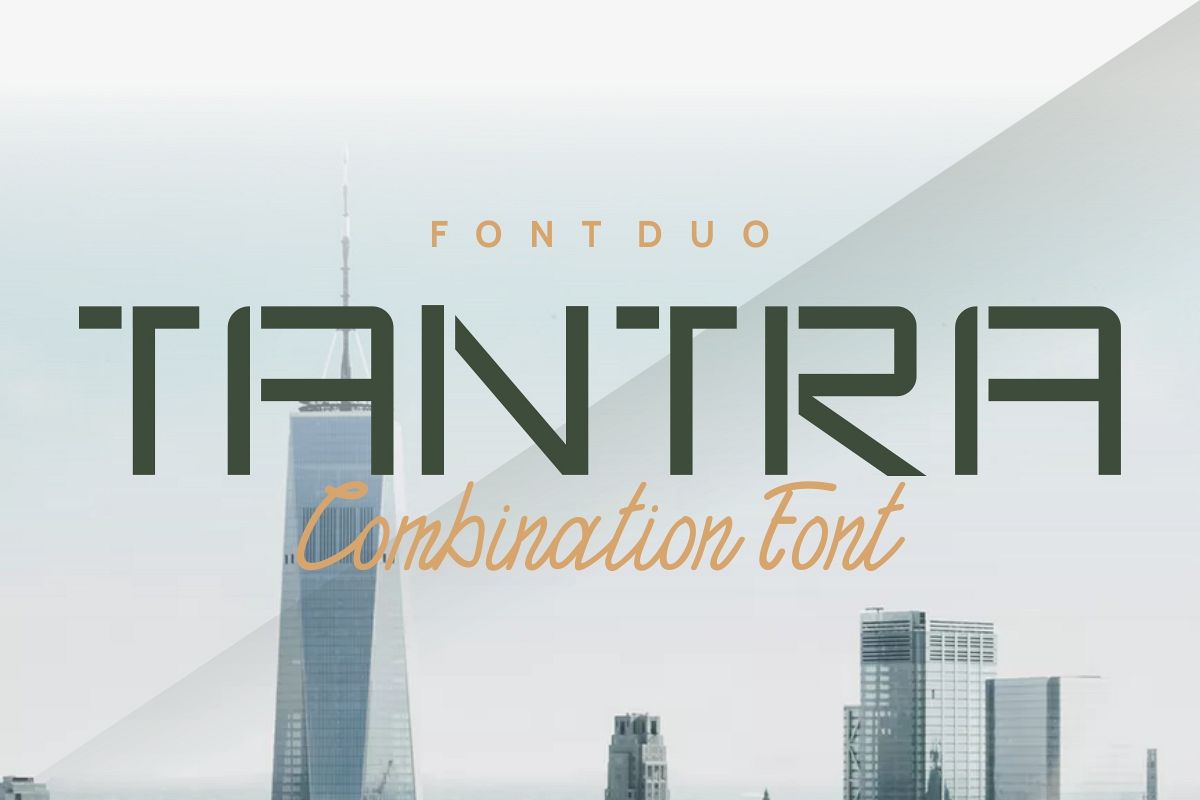
TANTRA
TANTRA-Regular
TANTRA-Outline
TANTRA-Script
Hi Everyone! Introducing our newest font : TANTRA ! This is a Display sans and script font : Regular, Script and Outline.TANTRA is a sophisticated styling font which will be perfect for branding, logo, photography, signature, stationery, business card, signage, flyer, brochure, invitation, etc. There are many industries that is suitable for this font : wedding, construction, real estate, services, law firm, marketing, artist, hairstylish etc. It is so elegant, classy, strong and beautiful.This font will Work on PC & Mac with Simple installations. Accessible in the Adobe Illustrator, Adobe Photoshop, Adobe InDesign, even work on Microsoft Word. It’s also PUA Encoded Characters – Fully accessible without additional design software.Purchase with confidence! =)